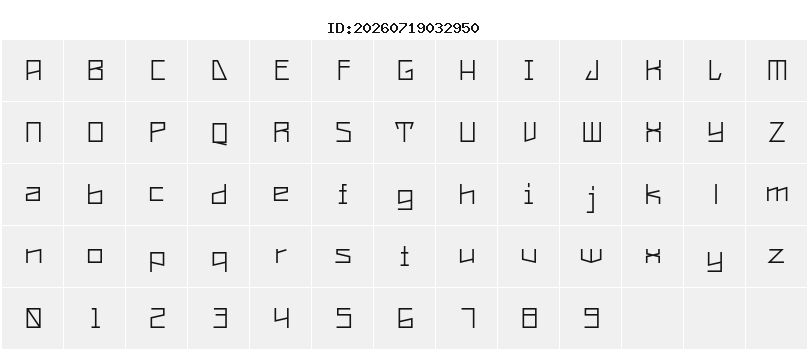
• Font Name: Constructa
• Designer: Nicolas gafner
About Constructa.otf
Constructa.otf is a modern, elegant sans-serif font designed for ultimate readability and visual harmony. Perfect for branding, headlines, web design, and print materials.